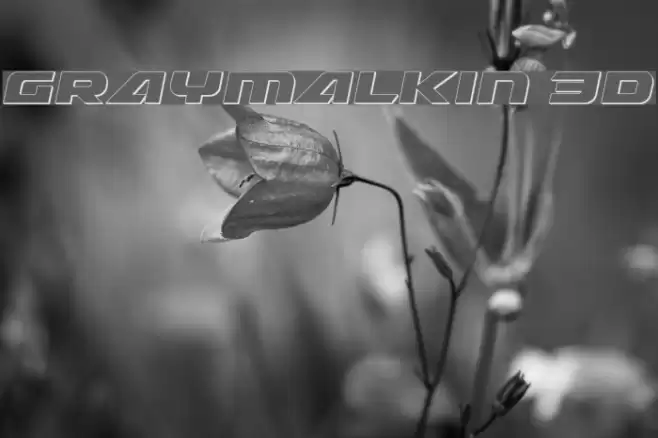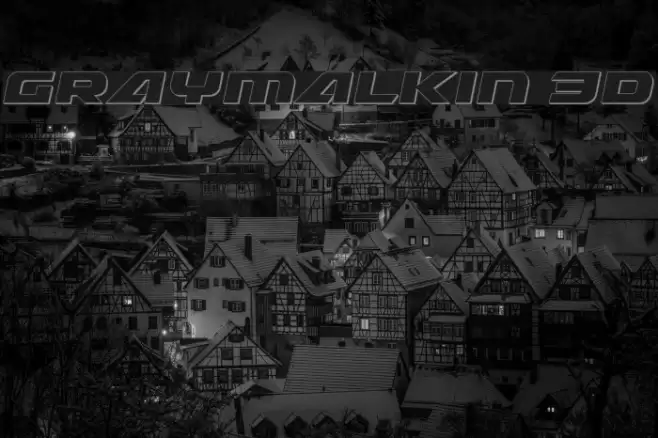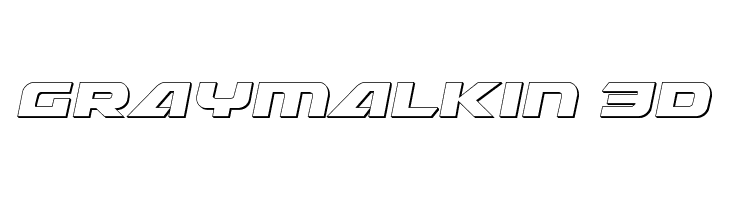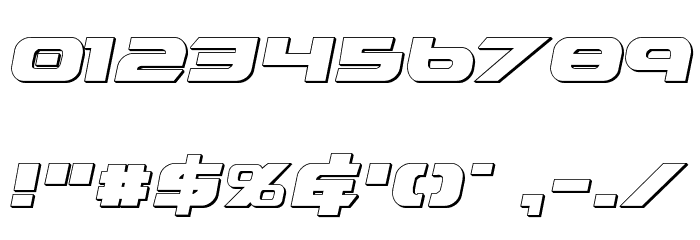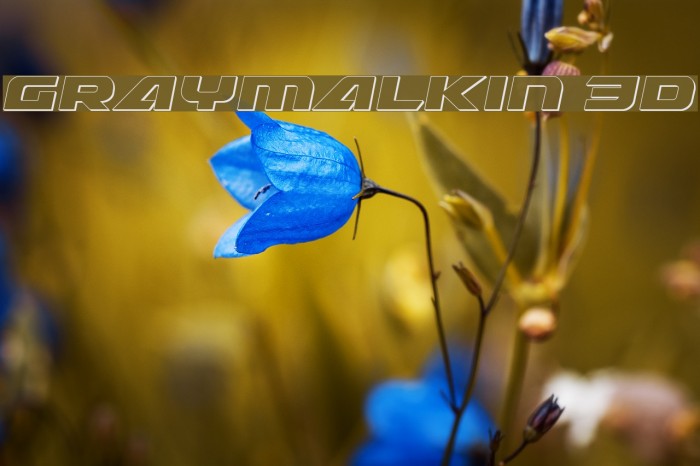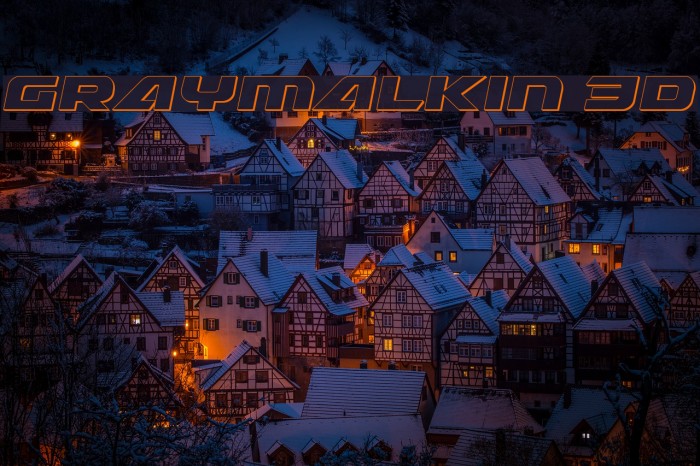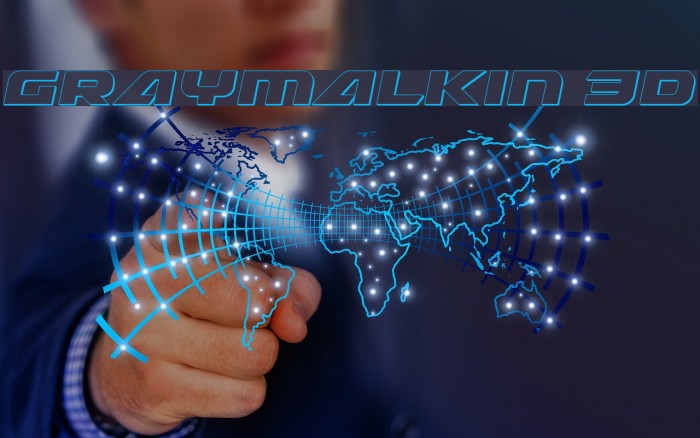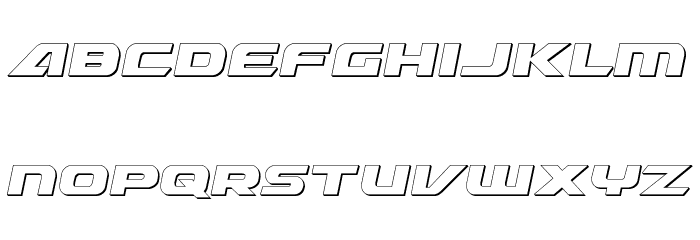
Graymalkin 3D Font
Graymalkin 3D Description
This font features a bold, three-dimensional style with a futuristic and geometric appearance. The characters are outlined, giving them a hollow look that enhances the 3D effect. Each letter and number is crafted with sharp angles and clean lines, creating a sense of depth and modernity. The uppercase and lowercase letters maintain a consistent design, while the numerals and special characters complement the overall aesthetic. This font is ideal for projects that require a striking and contemporary visual impact.
A bold, 3D geometric font with a futuristic outline style from Uncategorized fonts.
- Proposed Projects: Ideal for sci-fi themed designs, video game titles, posters, and branding that requires a modern and dynamic look.